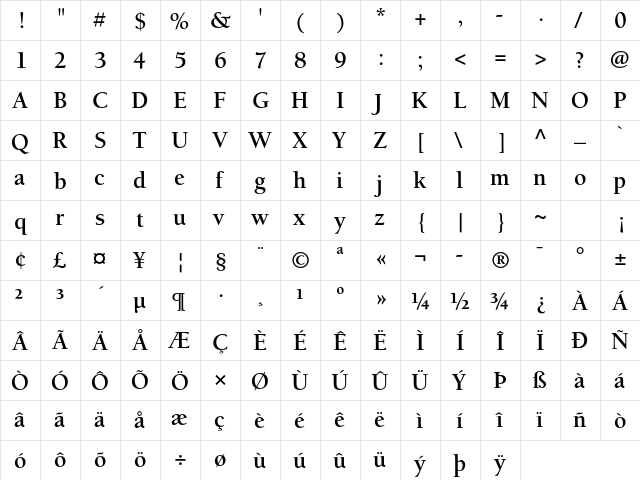
ITC Berkeley Oldstyle Std Bold Font Preview
ITC Berkeley Oldstyle Std Bold
ITC Berkeley Oldstyle Std Bold Font Details
| Designer | Frederic W. Goudy |
Design Context for ITC Berkeley Oldstyle Std Typeface
ITC Berkeley Oldstyle Std brings classic typographic sensibility to the table — its serifs and measured letterforms reflect centuries of print heritage. The heavy weight commands attention and anchors typographic hierarchies.
Pro Tip: Use ITC Berkeley Oldstyle Std for editorial body copy and considered headline work. Pair with a neutral sans for UI elements or captions to create a classic hierarchy.